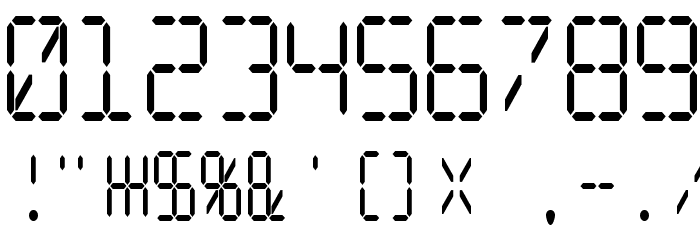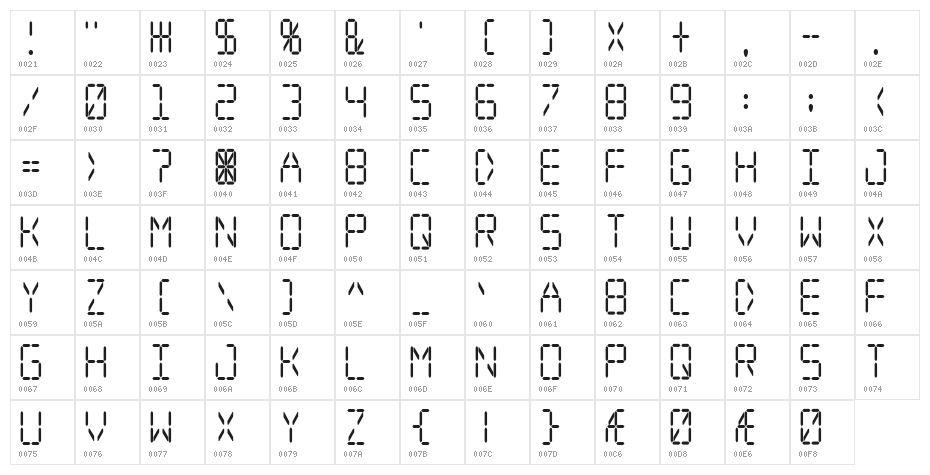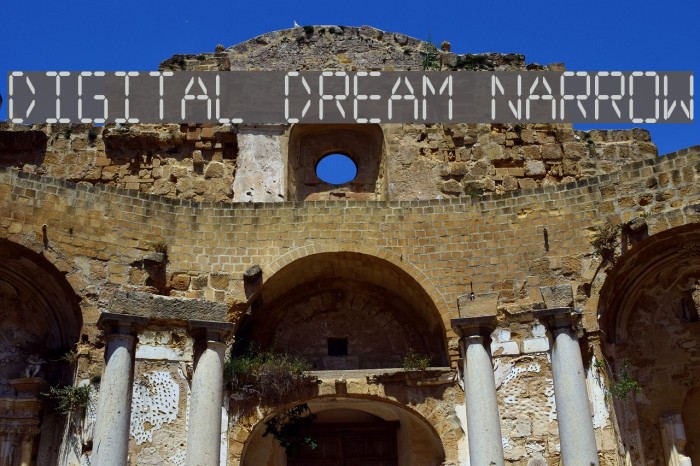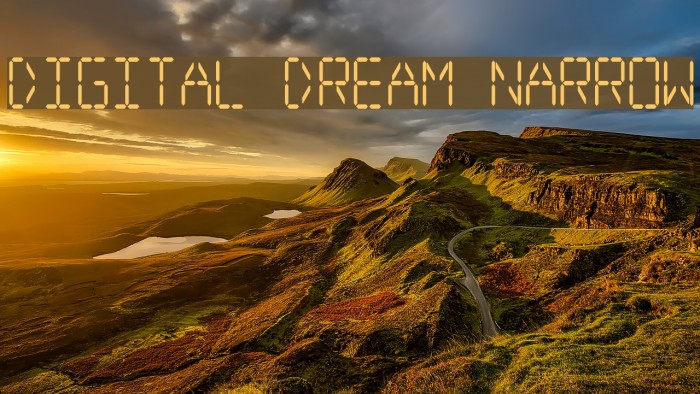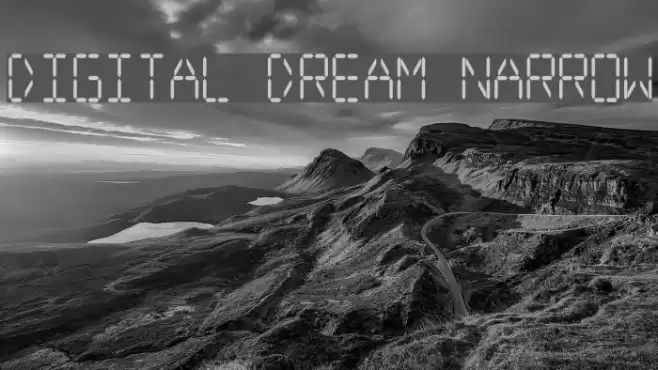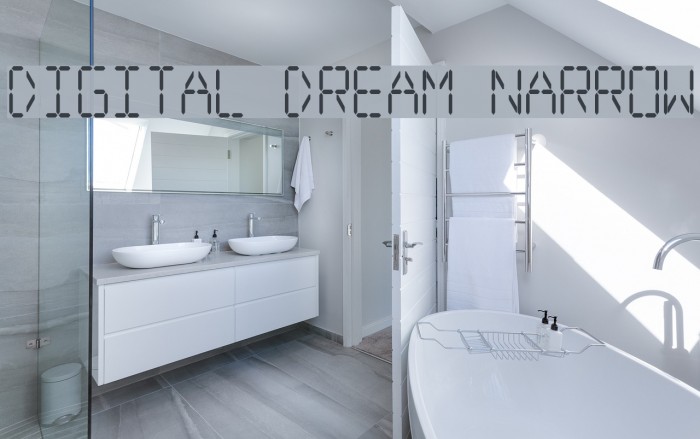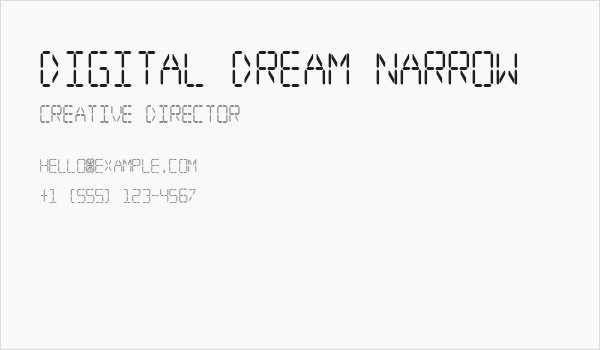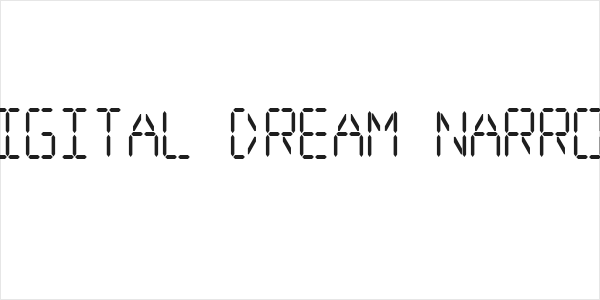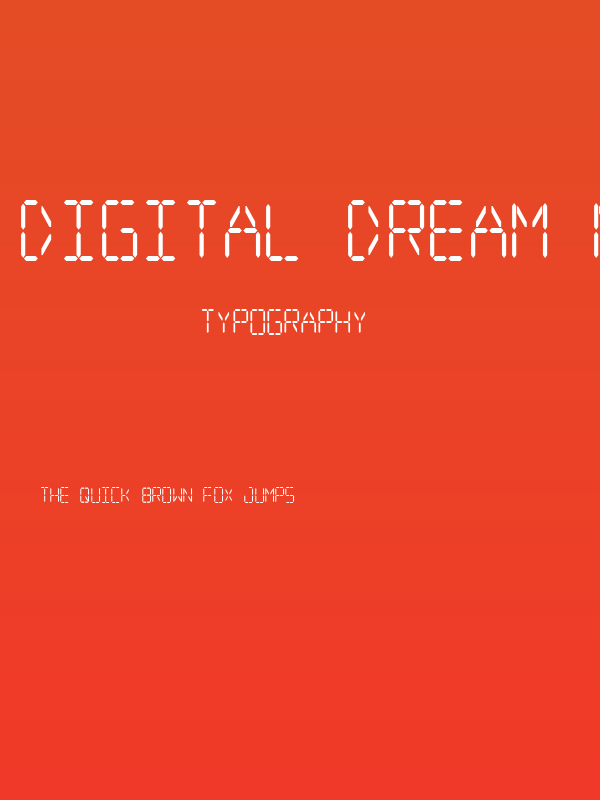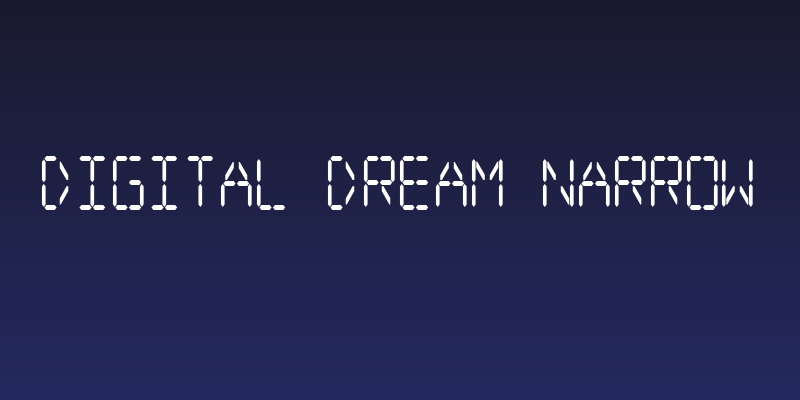
Digital dream Narrow Font
Digital dream Narrow Description
This font features a digital, segmented style reminiscent of classic LED displays. Each character is composed of distinct segments, creating a futuristic and technological appearance. The design is clean and geometric, with a uniform width that enhances readability. The uppercase and lowercase letters maintain a consistent height, while the numerals and special characters follow the same segmented pattern, ensuring a cohesive look across all text. This font is ideal for projects that require a modern, digital aesthetic.
| Use Case | Headlines, Logos, Digital displays |
| Proposed Projects | Ideal for digital interfaces, tech-themed designs, futuristic branding, and electronic displays. |